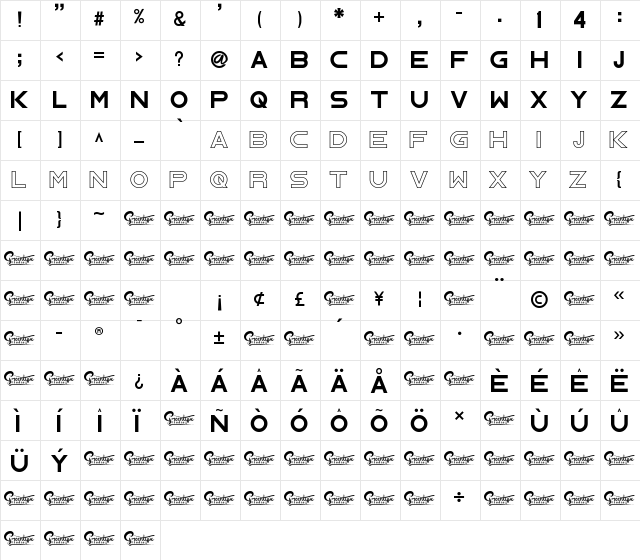
HOPE-HYPE Regular
| Designer | Greentrik |
Design Context for HOPE-HYPE Typeface
HOPE-HYPE offers clean, dependable letterforms without strong stylistic allegiance, making it a practical choice for designers who need flexibility.